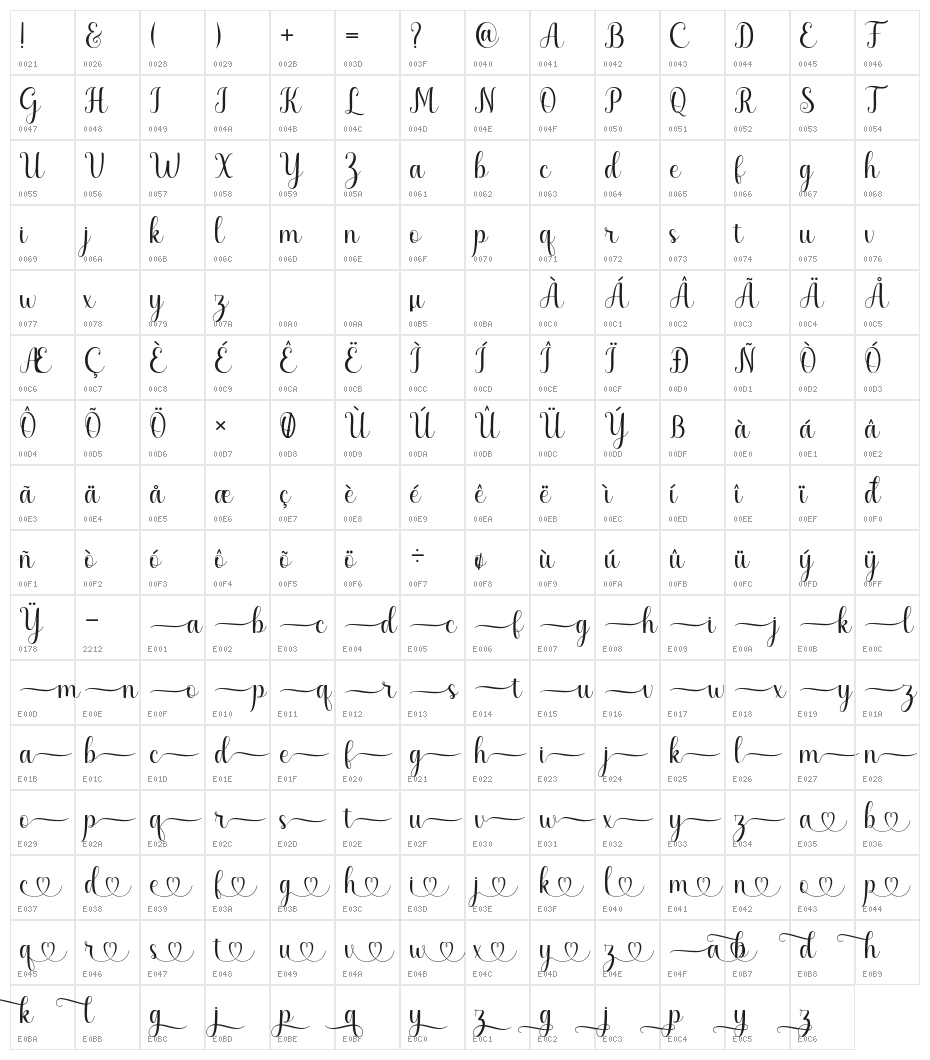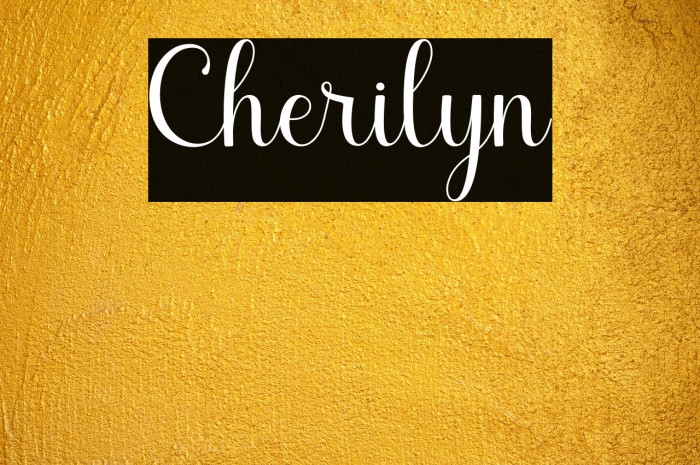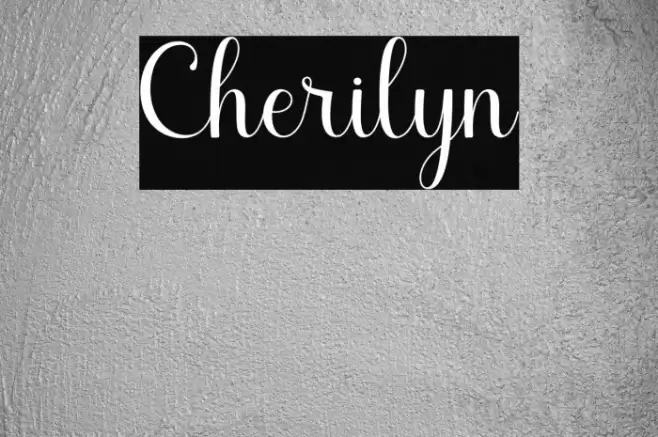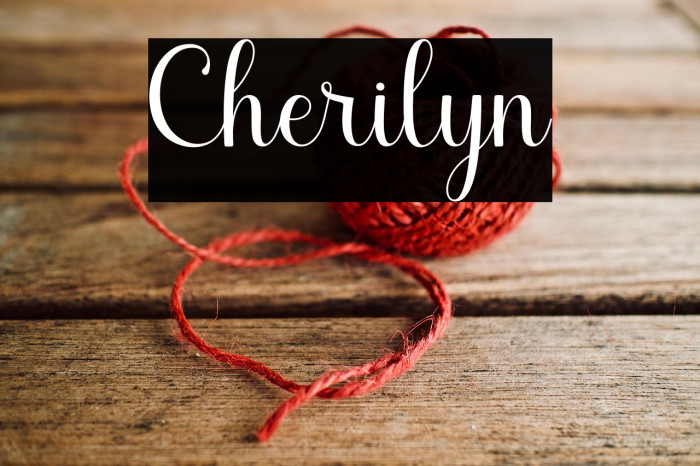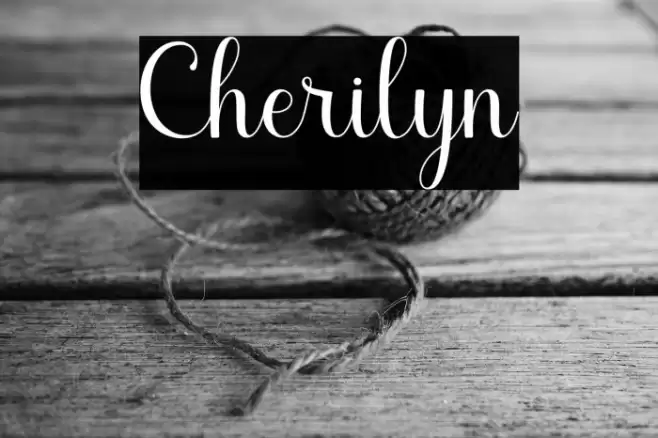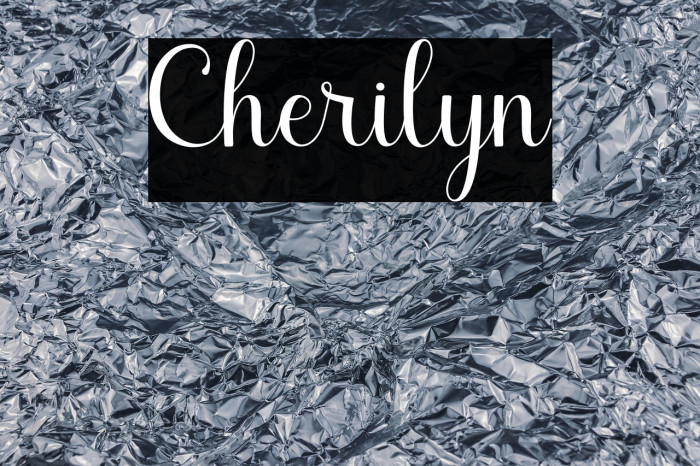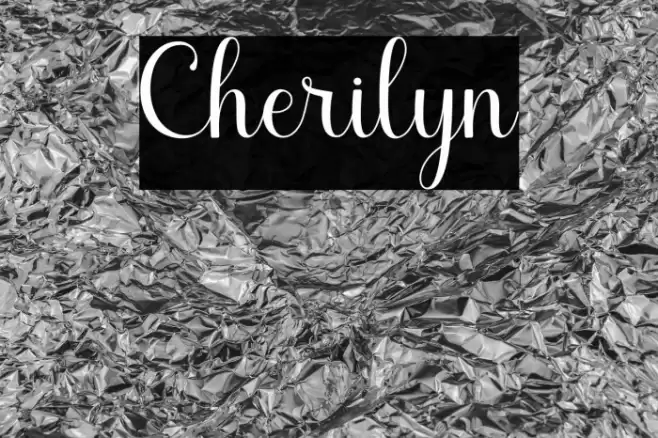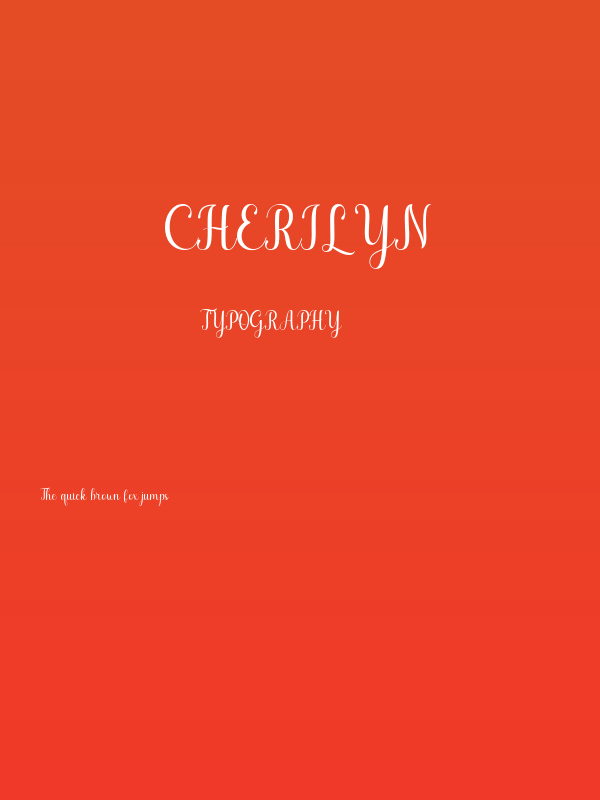
Cherilyn Font
Cherilyn Description
This elegant script font features a flowing, cursive style with delicate swashes and loops that give it a sophisticated and graceful appearance. The uppercase letters are adorned with intricate flourishes, while the lowercase letters maintain a smooth and connected flow. The font's design is reminiscent of classic calligraphy, making it ideal for projects that require a touch of elegance and refinement. The characters are well-balanced, with consistent stroke widths that provide a harmonious look. This font is perfect for creating beautiful invitations, elegant branding, and stylish headlines.
Overall StyleClassic
Use CaseHeadlines, Invitations, Logos
Proposed ProjectsIdeal for wedding invitations, elegant branding, stylish headlines, and decorative purposes.